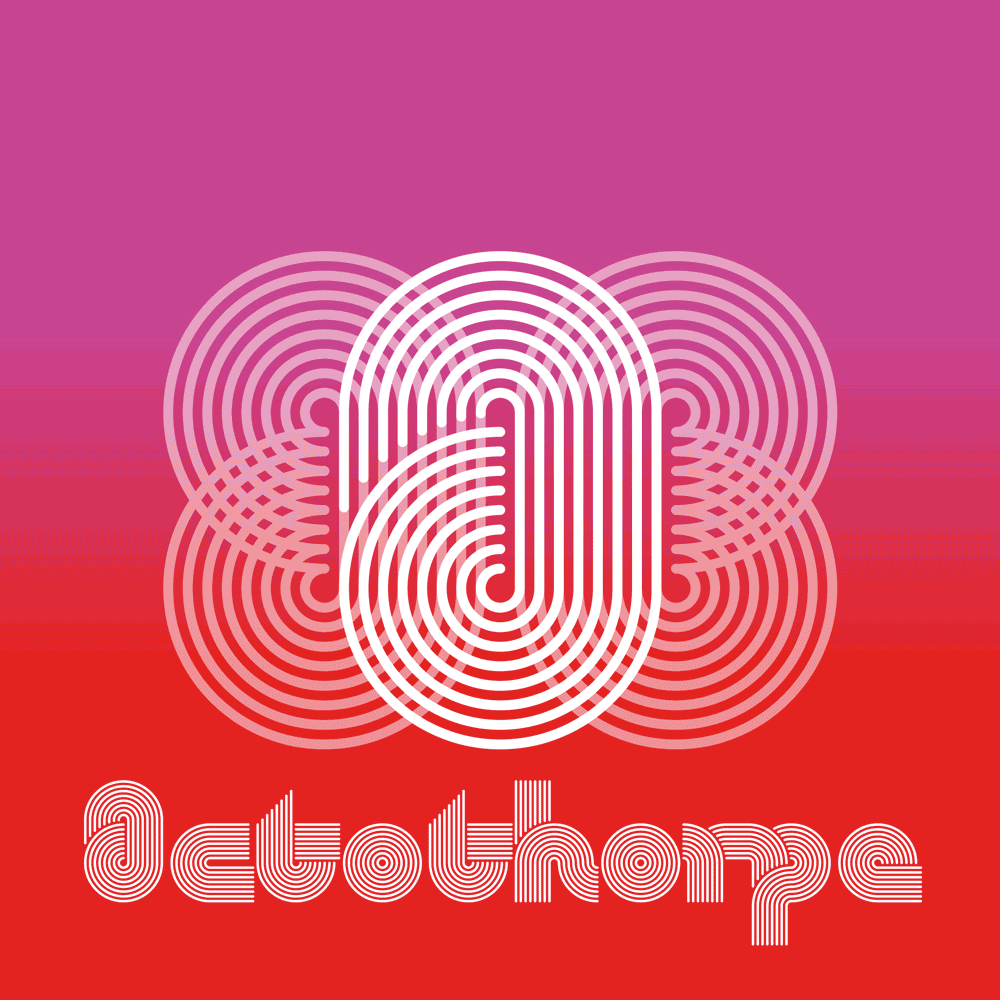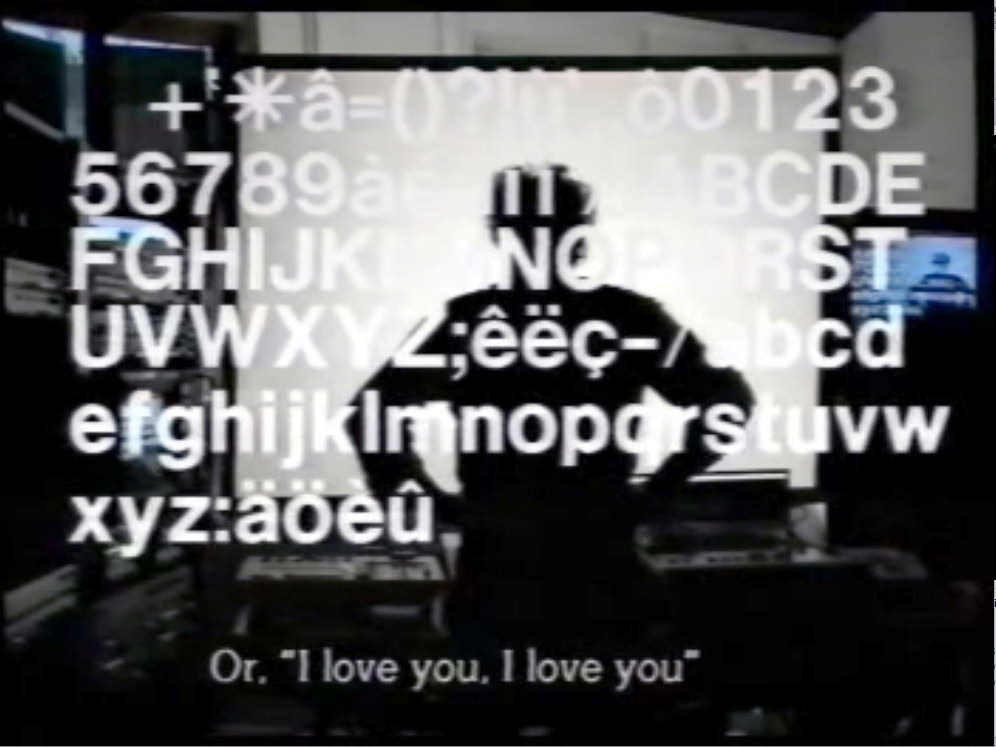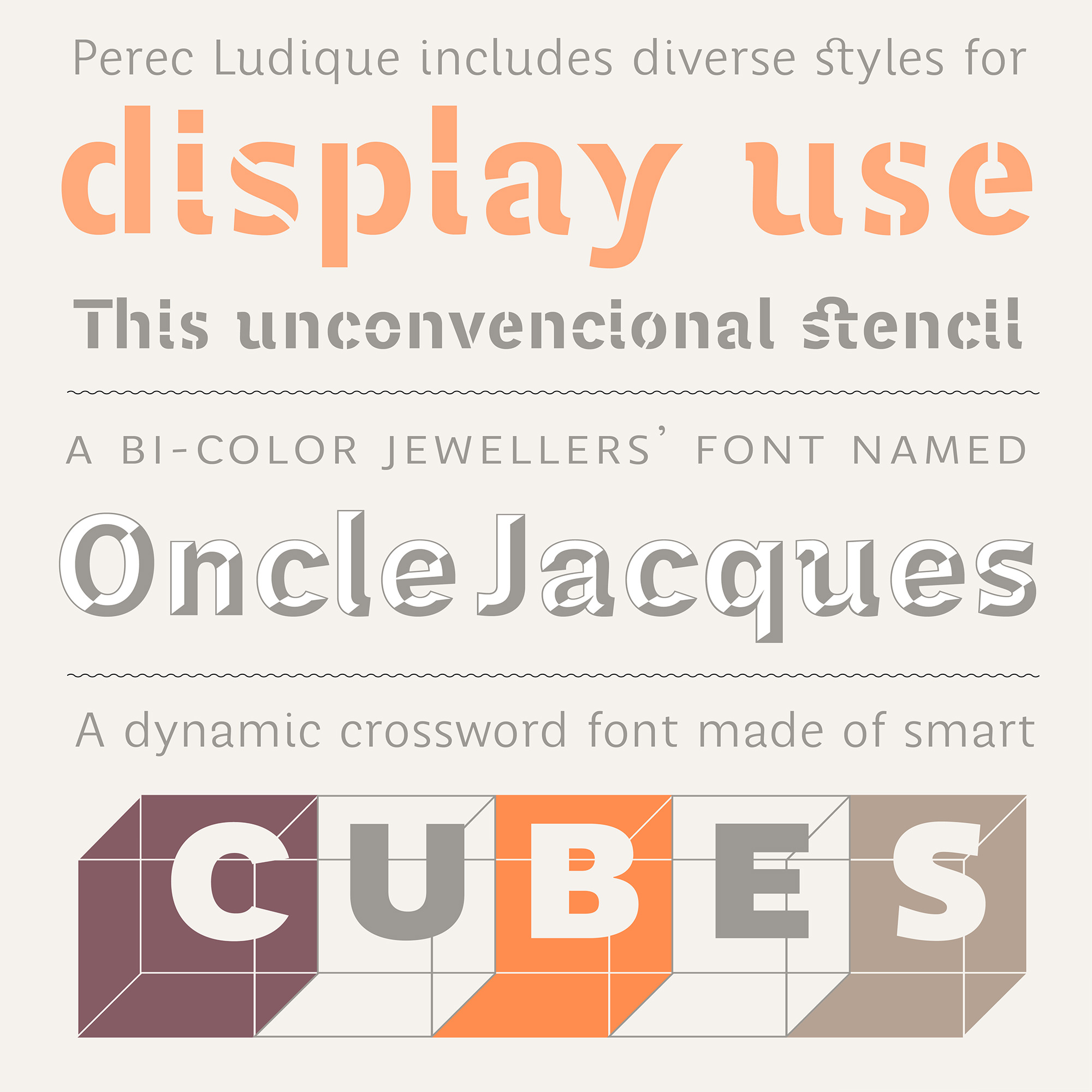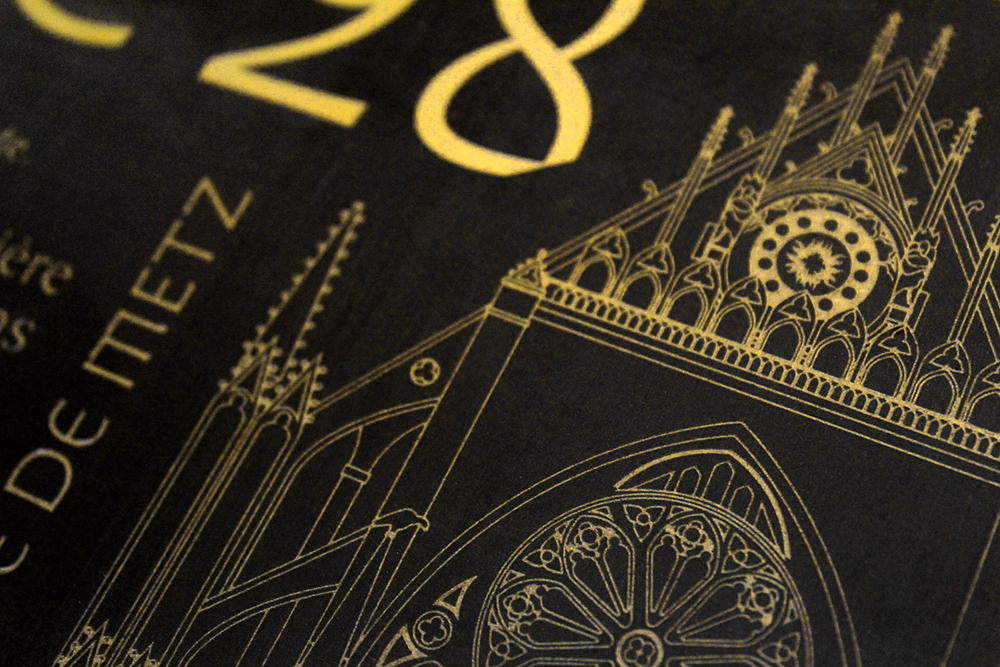
New release: Octothorpe
Based on Tony Wenman’s font Stripes (Letraset, 1972), Octothorpe is an intricate, daring, high-powered display font, designed and programmed by Mexican type designer Jorge Iván Moreno Majul. Octothorpe has been conceived as a smart typographic tool that lets you design impactful, provocative pieces of digital lettering.
Perec Ludique 2.0
Perec Ludique, a part of the Perec type system, has been seriously upgraded and it now enjoys extensive language coverage plus new additional features. Check it out at our font test page.
The Cathedral project
by Francis Ramel
This article unfolds the challenges and design details of a singular project: the development of a unique type system for the identity and signage of the cathedral Saint-Étienne of Metz, France, which celebrates its 800th anniversary in 2020.
Jean-Luc Godard, the Typographer with a Movie Camera
by Paule Palacios-Dalens
Printed or filmed, Jean-Luc Godard’s graphic production surprises by its frequency and formal audacity. Whether inserts or credits, trailers or commercials, press kits or special issues, all of his work bears his trademark. Do you know what fonts Godard has chosen for his works? And why?
Andralis
by Rubén Fontana
This is a book devoted to the memory of Juan Andralis: surrealist, typographer, printer, poet, translator, editor, graphic designer, and painter; a man who had a significant influence on the life and work of several outstanding personalities of art and culture in Buenos Aires. A profoundly enjoyable and inspiring read.